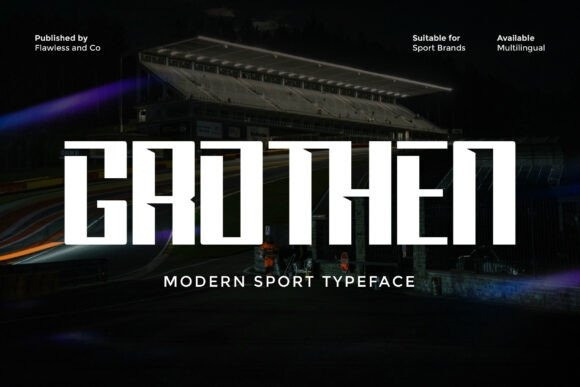
Grothen Font
Grothen Font is a bold and energetic modern sport sans serif font designed to deliver strength, speed, and impact in every letter. With its sharp edges, solid structure, and dynamic style, Grothen captures the spirit of athleticism and competition. The font is crafted to stand out in high-impact designs while maintaining clarity and readability, making it perfect for attention-grabbing visuals. Whether you’re working on sports branding or bold headlines, Grothen brings power and confidence to your typography.